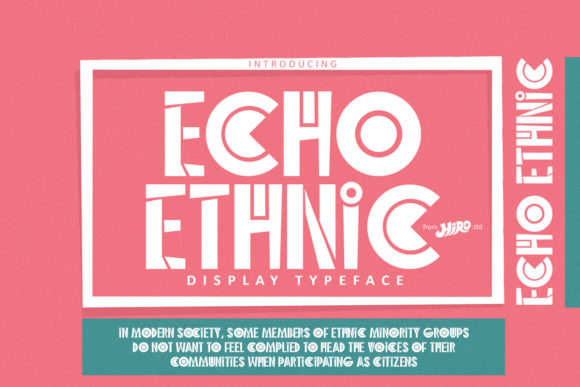
Prepare yourself to embark on an extraordinary typographic journey with Echo Ethnic Font, a display font that will ignite your creativity and leave an unforgettable mark on your designs. Crafted with meticulous precision by the renowned HIRO.std, this font is not just a collection of characters; it's a symphony of shapes and angles, ready to elevate your visual communication to new heights.
Echo Ethnic Font effortlessly balances sharp edges with smooth curves, creating a captivating visual harmony that dances across your screen. Its geometric nature exudes a modern and contemporary aesthetic, while its Latin character set ensures global accessibility, making it the perfect choice for projects that demand a touch of international flair.
Whether you're a seasoned designer or just starting your typographic adventure, Echo Ethnic Font is your gateway to endless possibilities. Its versatility shines through in a myriad of applications, from eye-catching headlines and captivating posters to sophisticated logos and alluring social media graphics. Let your imagination soar as you explore the vast design landscape with this font as your fearless companion.
But Echo Ethnic Font is more than just a tool; it's an expression of your unique style. With its ability to transform ordinary words into extraordinary works of art, this font empowers you to make a bold statement, captivating your audience with every stroke. Its geometric precision conveys a sense of stability and confidence, while its subtle curves add a touch of warmth and approachability.
Immerse yourself in the world of Echo Ethnic Font and let your creativity flourish. Its clean lines and striking shapes will inspire you to push the boundaries of design, creating visuals that resonate with your audience on a profound level. Whether you're crafting a captivating brand identity or simply adding a touch of sophistication to your personal projects, this font is the key to unlocking your typographic potential.